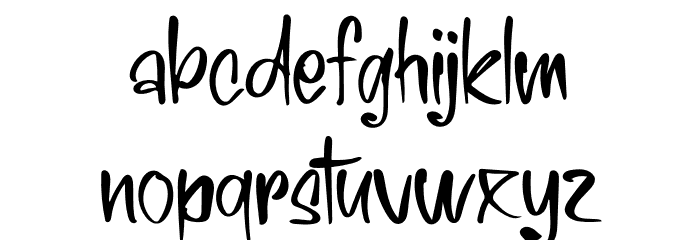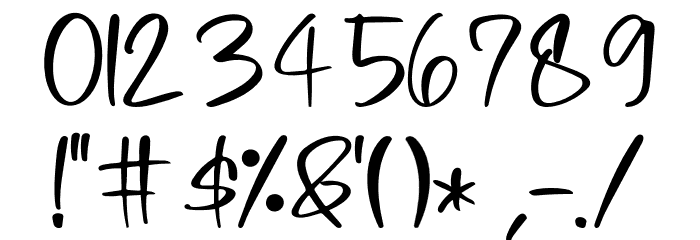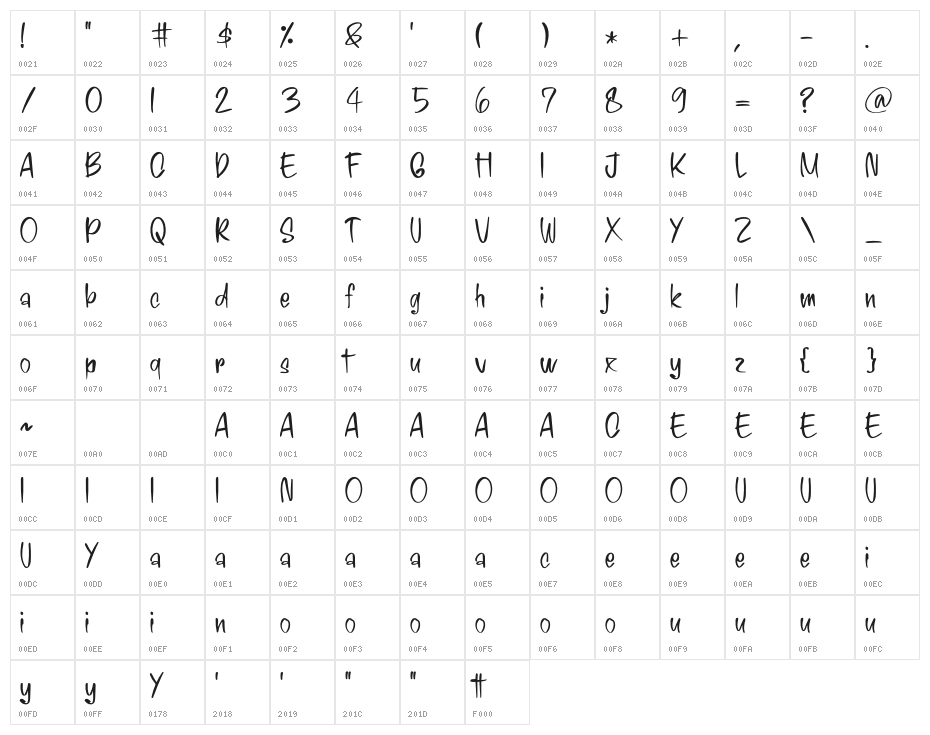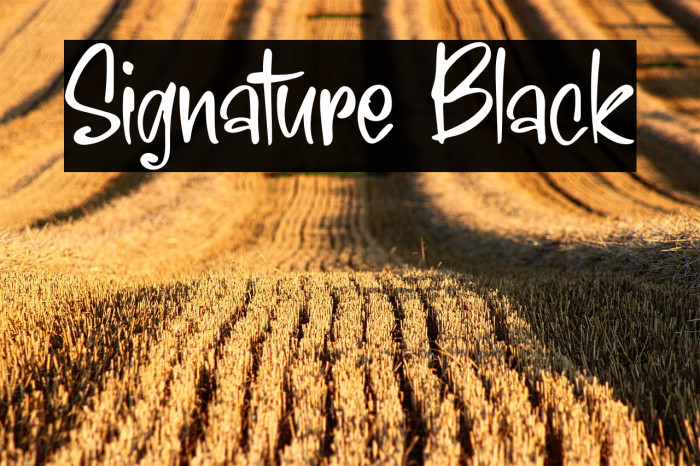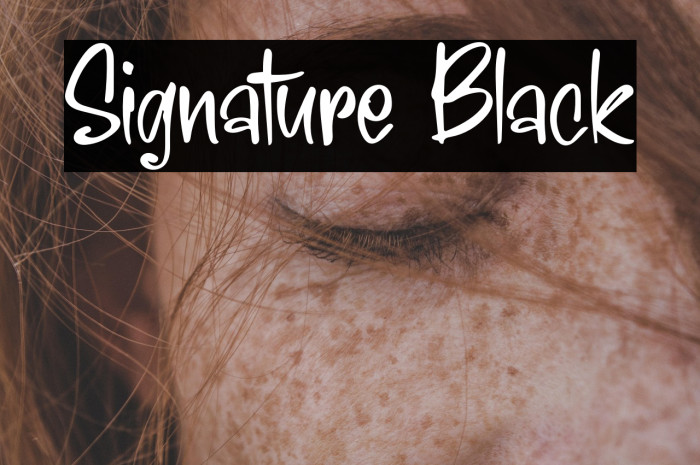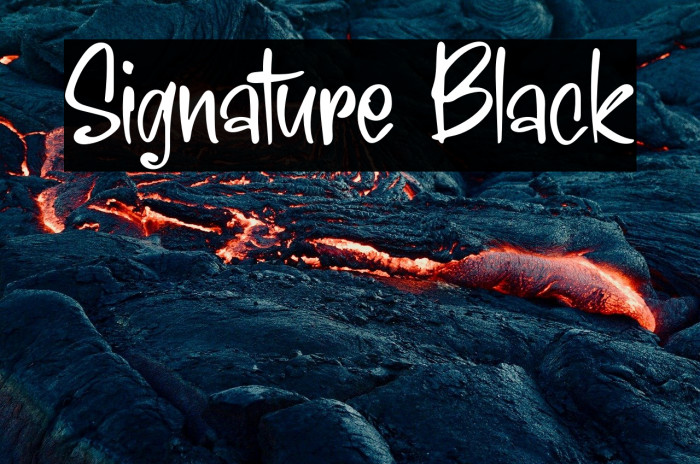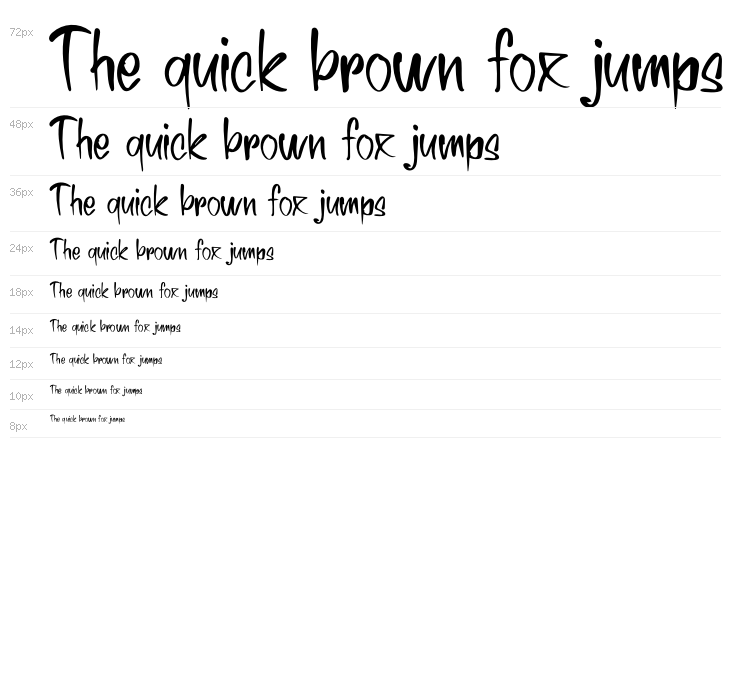
Signature Black Font
This font exudes a casual and playful handwritten style, characterized by its fluid and dynamic strokes. The letters have a natural flow, mimicking the spontaneity of a personal signature. Uppercase characters are bold and slightly elongated, while lowercase letters maintain a consistent height, adding to the font's readability. Numbers and special characters are crafted with the same lively energy, ensuring a cohesive look across all elements. The overall appearance is both approachable and stylish, making it suitable for a variety of creative applications.
A lively, handwritten font with a casual and playful style.
- Overall Style: Casual